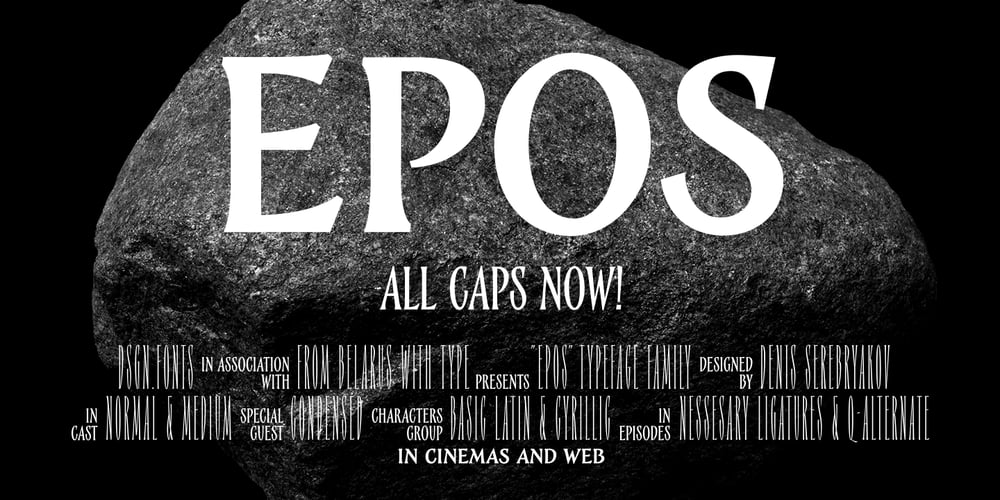
Epos Font Family was designed by Denis Serebryakov and published by Serebryakov. Epos contains 3 styles and family package options. All-cap titling typeface, Epos, comes in three widths and includes a range of decorative ligs & alts – as well as both Latin & Cyrillic scripts. It reminds of hand-lettered book covers from the early and mid 20th century.